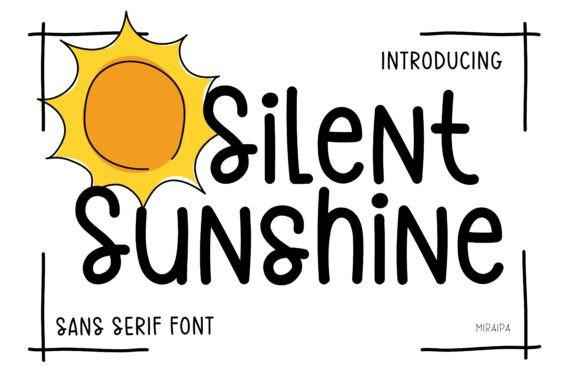
Introducing Silent Sunshine: A Font That Captures the Essence of Joy and Playfulness
Step into a world of delightful charm and whimsical creativity with Silent Sunshine, a sans serif font that dances across your designs with a captivating aura of joy and playfulness. Miraipa, the creative mind behind this font, has woven together an intricate tapestry of curves and strokes, each line flowing with the grace of a sun-kissed summer breeze. Discover the beauty of spontaneous expression as Silent Sunshine transforms your words into captivating visual melodies.
At the heart of Silent Sunshine lies a spirit of authenticity, radiating warmth and genuineness with every character. Whether you're crafting heartfelt wedding invitations, designing playful social media posts, or adding a touch of whimsy to your digital creations, Silent Sunshine becomes an extension of your imagination, bringing your ideas to life with an irresistible spark.
Silent Sunshine is a font crafted for joyous occasions, a symphony of letters that captures the essence of laughter and celebration. Imagine your wedding invitations adorned with Silent Sunshine, each word dancing in harmony, carrying your love story with an undeniable charm. Your social media posts will radiate a vibrant energy, captivating your audience with messages that leap off the screen with vivacity. Your digital designs will transform into captivating works of art, alive with the spirit of playfulness and fun.
With Silent Sunshine by your side, you embark on a creative journey where the ordinary transforms into the extraordinary. Each letter becomes a brushstroke of happiness, painting a picture of joy and lightheartedness. It's the perfect choice for projects that seek to evoke a sense of wonder, to inspire smiles, and to spread positivity like a contagious melody.
Embrace the magic of Silent Sunshine and embark on a creative adventure where your imagination knows no bounds. Let your designs exude an infectious joy, your words dance with delight, and your visual creations burst with an irresistible charm that captivates hearts. Silent Sunshine is more than just a font; it's a gateway to a world of creativity and happiness, waiting to be explored.